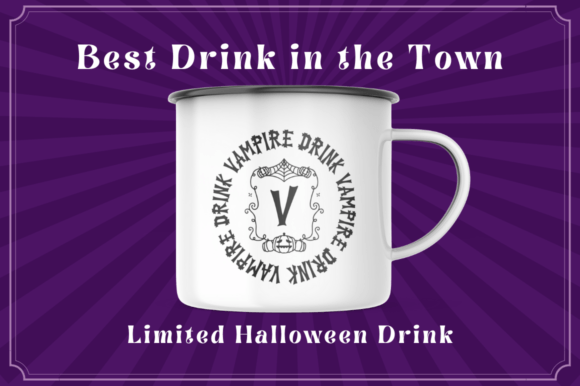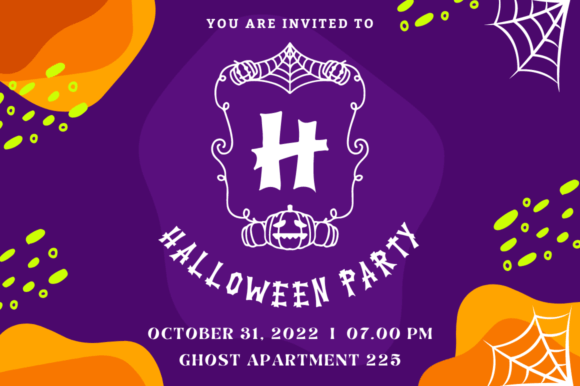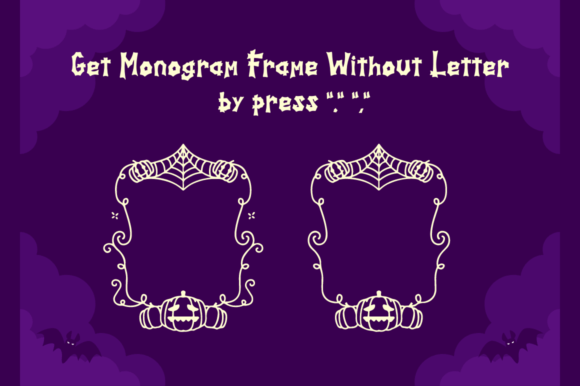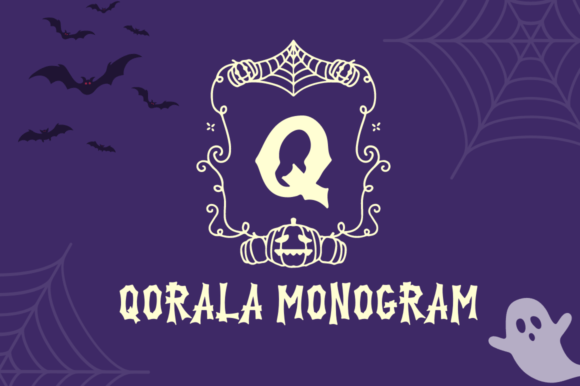
Introduction to Qorala Monogram Font
Qorala Monogram is a Halloween-theme monogram font, spooky, scary & perfect for your Halloween special occasions, business designs, logos, branding, social media posts, and wedding cards.
Key Features of Qorala Monogram Font